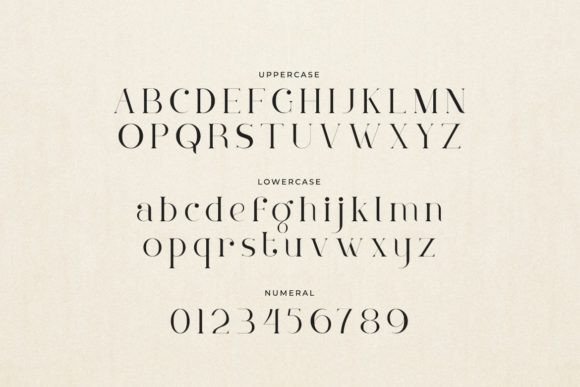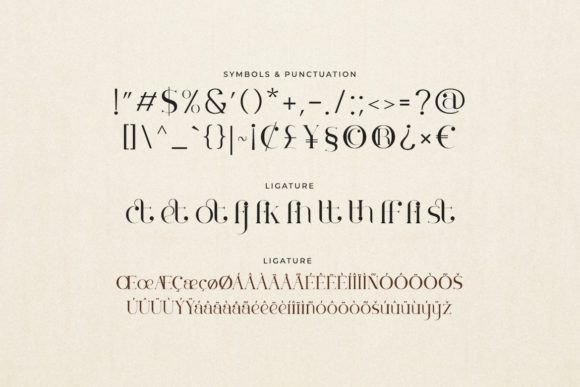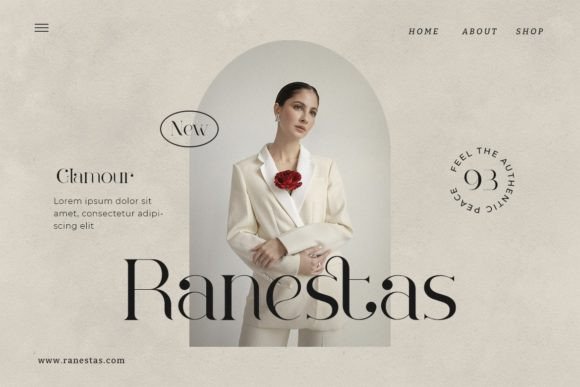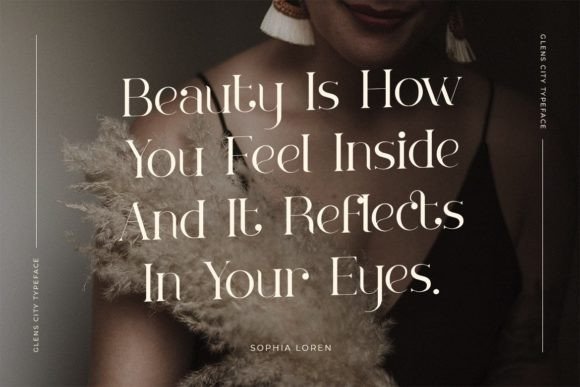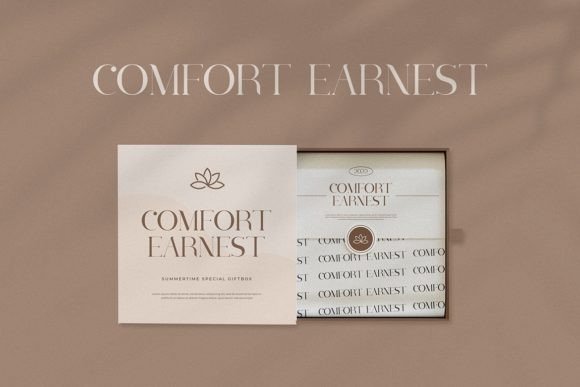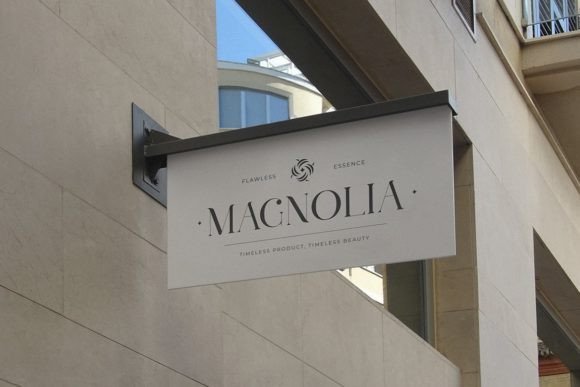
Introducing Glens City Font: Elevate Your Designs with Elegance and Versatility
In the world of typography, finding the perfect font that combines elegance, tradition, and modernity can be a daunting task. However, if you’re looking for a typeface that seamlessly blends classic influences with a contemporary aesthetic, look no further than Glens City Font. This exquisite serif font is meticulously crafted to offer designers and crafters an unparalleled level of sophistication and flexibility in their projects.
The Essence of Glens City Font
Glens City Font stands out with its elegant serif design, which draws inspiration from traditional typography while presenting a refreshingly modern appeal. Its creation is a testament to the beauty of blending old-world charm with contemporary style, making it an ideal choice for a wide range of design projects. Whether you’re working on a luxury brand logo, a high-end fashion magazine, or an elegant wedding invitation, Glens City Font is sure to impress.
Unmatched Versatility
One of the key advantages of Glens City Font is its incredible versatility. Its design is elegant yet subtle, allowing it to complement a vast array of themes and styles without overpowering them. This adaptability makes it a valuable asset for designers who work on diverse projects, as it can easily be matched to suit various creative visions. From sophisticated business cards to luxurious packaging, Glens City Font brings a touch of class and refinement to any design.
Glens City Font takes convenience to the next level with its PUA (Private Use Area) encoding. This feature allows users to access all the amazing glyphs and ligatures with ease, providing a seamless design experience. PUA encoding ensures that you can unlock the full potential of the font, making it simple to incorporate intricate details and unique elements into your work. This means you can focus on the creative aspect of your project, knowing that your font will perform flawlessly.
Why Choose Glens City Font?
There are several reasons why Glens City Font should be your go-to choice for your next design project:
• Elegant Serif Design: Offers a classic yet modern look that elevates any design.
• High Versatility: Suitable for a wide range of projects, from luxury brands to personal crafts.
• PUA Encoded: Easy access to glyphs and ligatures for enhanced design flexibility.
• Contemporary Aesthetic: Blends traditional influences with a modern appeal.
Applications of Glens City Font
The applications of Glens City Font are vast and varied. Here are a few ideas to get you started:
• Branding and Logos: Create memorable and sophisticated logos for luxury brands.
• Print Materials: Enhance business cards, brochures, and magazines with a touch of elegance.
• Packaging: Add a luxurious feel to product packaging.
• Invitations and Events: Design beautiful wedding invitations, event posters, and more.
• Digital Media: Use in website headers, social media graphics, and digital advertisements for a refined look.
Glens City Font is a masterpiece of modern typography, offering designers and crafters a unique blend of elegance, tradition, and versatility. Its PUA encoding makes it incredibly user-friendly, allowing for easy access to a wide range of glyphs and ligatures. Whether you’re aiming for a subtle yet exquisite look or seeking maximum design flexibility, Glens City Font is an exceptional choice. Elevate your designs with the sophistication and charm that Glens City Font has to offer.